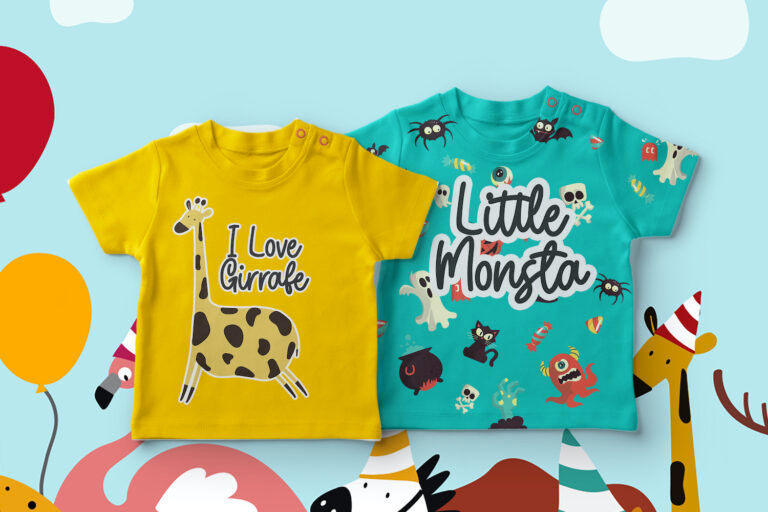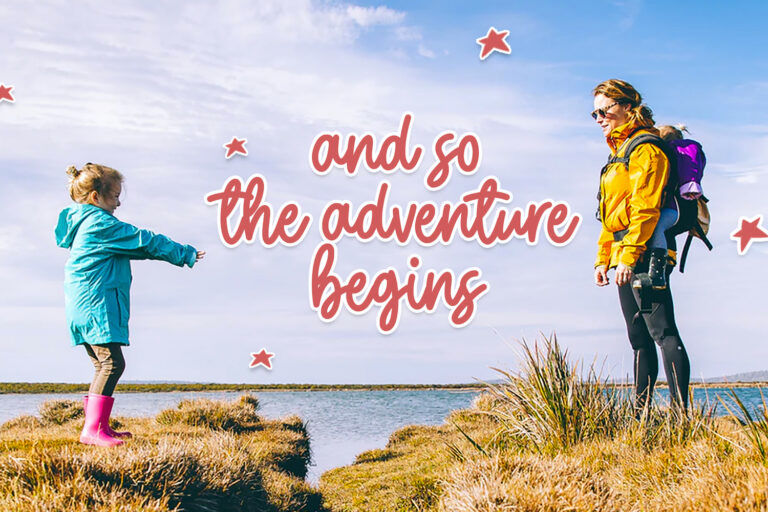
The Weatpoint Playful Script Font brings warmth, personality, and a charming handwritten feel to any project. With smooth curves and a friendly bounce, each letter feels like it was penned with care. The natural flow and subtle stroke variations add to its human quality, making it perfect for informal and emotional expressions. Despite its handwritten nature, the legibility remains excellent—even in extended words or phrases.
Weatpoint thrives in designs that call for sincerity, fun, or a childlike touch. It’s a lovely fit for kids' apparel, birthday invitations, food branding, handmade product labels, and family-oriented social media posts. The font’s adaptability is clear in its ability to appear playful on T-shirts, soft on greeting cards, and warm in lifestyle branding. With multilingual support and a full character set, Weatpoint Playful Script Font ensures your message comes across clearly—no matter the language or platform. When you want your design to feel personal, cheerful, and approachable, Weatpoint is a delightful choice.